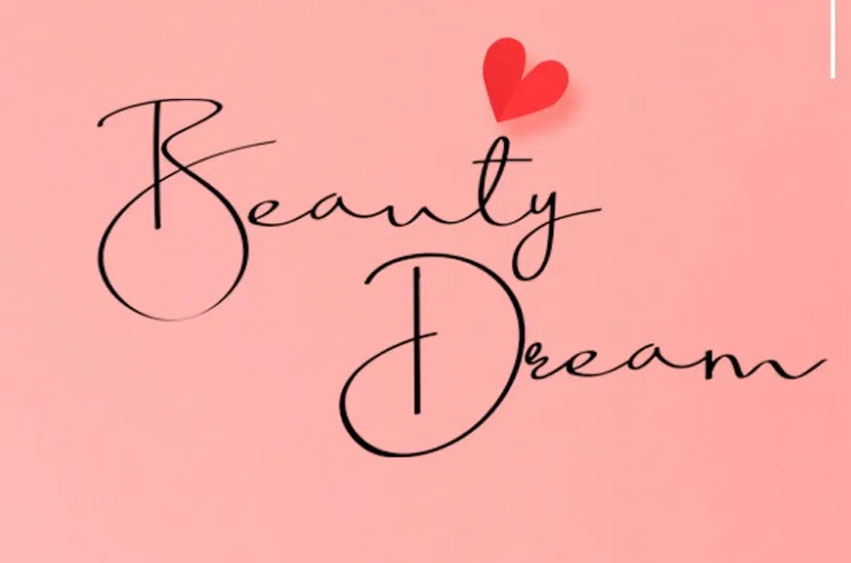
Beauty Dream Font
Beauty Dream Font is a soft, sweet and charming handwritten font with an incredible personality that is designed by Halymunt Studio halymuntstudio.com and is available for free download and personal use. The free version provides all uppercase and lowercase letters and a few special characters too.
Beauty Script: is perfect for branding projects, logo, wedding designs, social media posts, advertisements, product packaging, product designs, label, photography, watermark, invitation, stationery, and any projects that need handwriting taste.